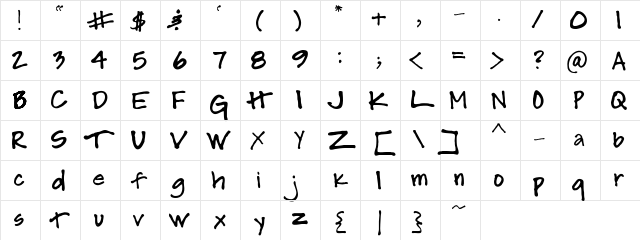
SM_hollyisM Regular
Foundry: Dan Meyer (smashmethod)
Designer: Dan Meyer (smashmethod)
Year: 2006 (Wed, 8th Feb 2006)
Design Context for SM_hollyisM
SM_hollyisM is a composed and adaptable typeface that performs quietly and consistently across a wide range of design contexts.
Who designed the SM_hollyisM Regular font?